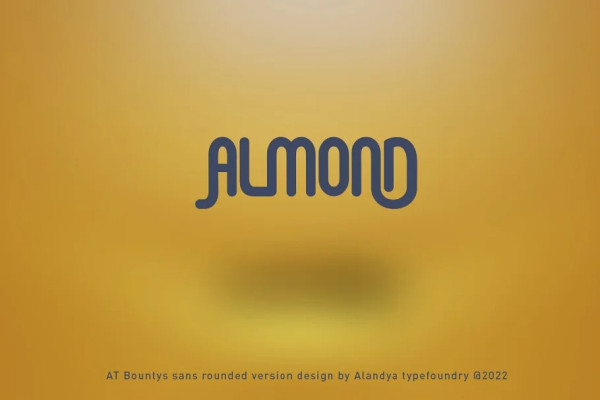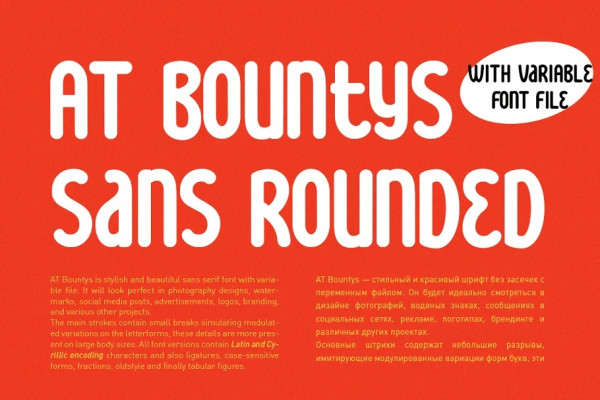
AT Bountys Rounded Font
AT Bountys Rounded Font, is stylish and beautiful sans serif font with variable file. It will look perfect in photography designs, watermarks, social media posts, advertisements, logos, branding, and various other projects.
The main strokes contain small breaks simulating modulated variations on the letterforms, these details are more present on large body sizes. All font versions contain Latin and Cyrillic encoding characters and also ligatures, case-sensitive forms, fractions, oldstyle and finally tabular figures.